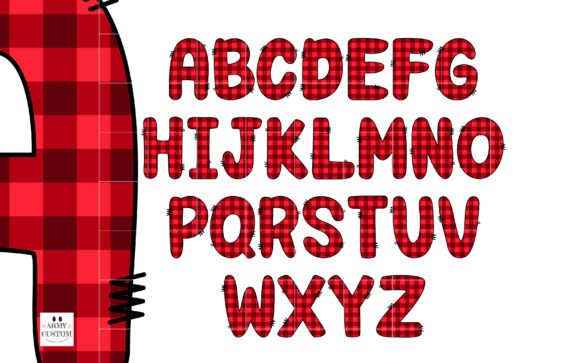
Christmas Bundle Font
Imbued with a sense of whimsy, this Christmas 5-styled color font is a playful addition to your holiday design toolkit.
Its jovial style makes it an ideal choice for creating vibrant holiday decorations or adding a dash of merriment to any design project. With the Christmas Bundle Font, every letter spelled out becomes a joyous celebration, inspired by the adorable antics of Santa’s helpers. Indulge in the spirit of the holiday season with this charming, elfish font.
Red Buffalo Plaid – Classic red-and-black checkered flannel pattern, evoking cozy winter vibes and traditional holiday attire.
Green Leopard Print – A bold twist on the usual animal print, using green and black for a wild yet festive feel.
Red Leopard Print – Adds a fierce holiday touch with red-on-black animal spots for added texture and edge.
Red Santa Suit – Solid red with Santa’s black belt and gold buckle, representing the jolly man himself.
Candy Cane Stripe – Red and white curved stripes reminiscent of peppermint candy canes.
Floral Christmas Pattern – White background with red poinsettias and green leaves, offering a soft, festive touch.
Holiday Characters & Props – Letters are decorated with extras like: 🎅 Santa Claus 🎁 Presents 🍬 Candy canes 🎄 Christmas trees 🔔 Bells with ribbons ⛄ Snowmen 🧦 Stockings 🧱 Chimneys 🍪 Gingerbread cookies.
Stitched Details – Letters are outlined or segmented with visible black stitching marks, giving a handmade, patchwork aesthetic.